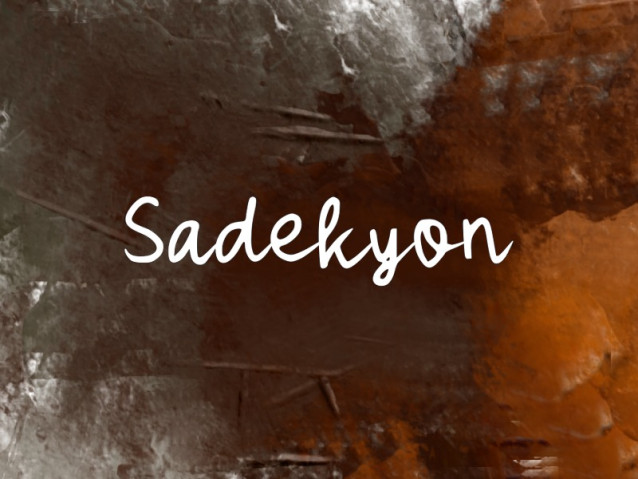
Sadekyon Font
Sadekyon Font is a simple and modern Handwritten font suitable for quotes, logos, headings, titles, and many more. Use it on any of your creative projects, and your designs will become outstanding!